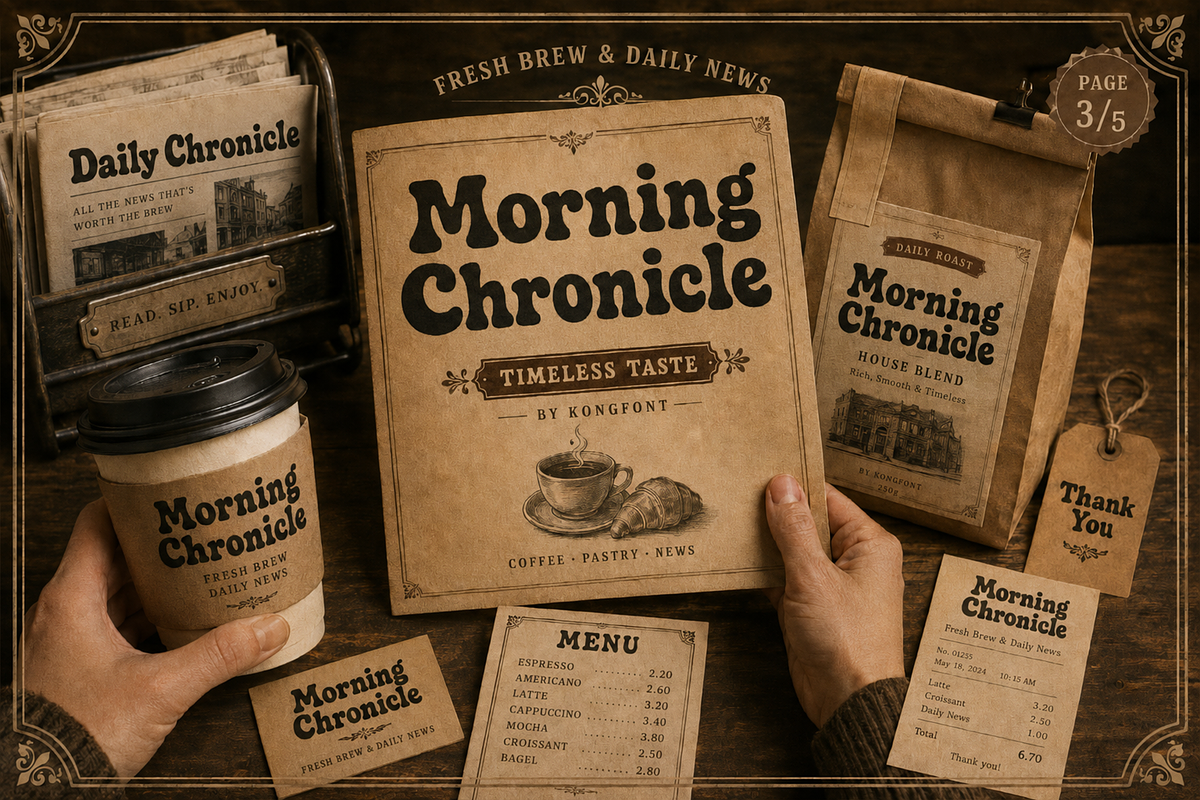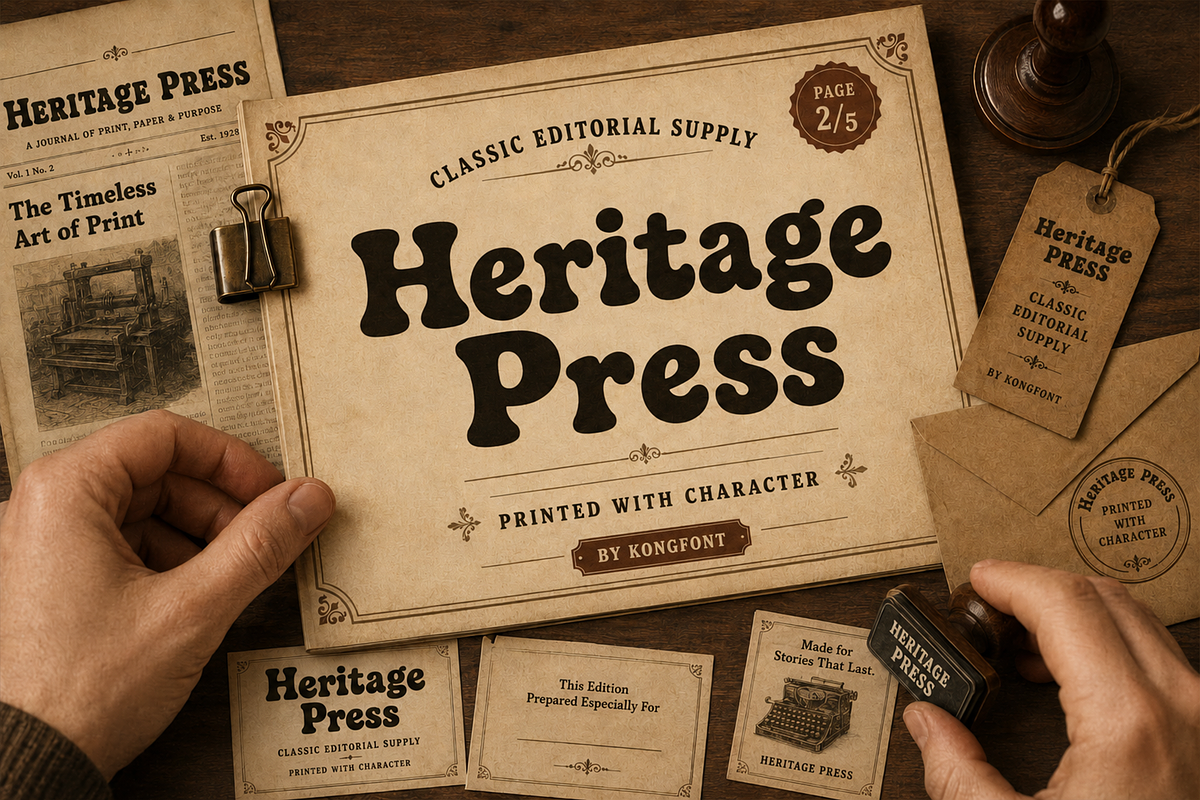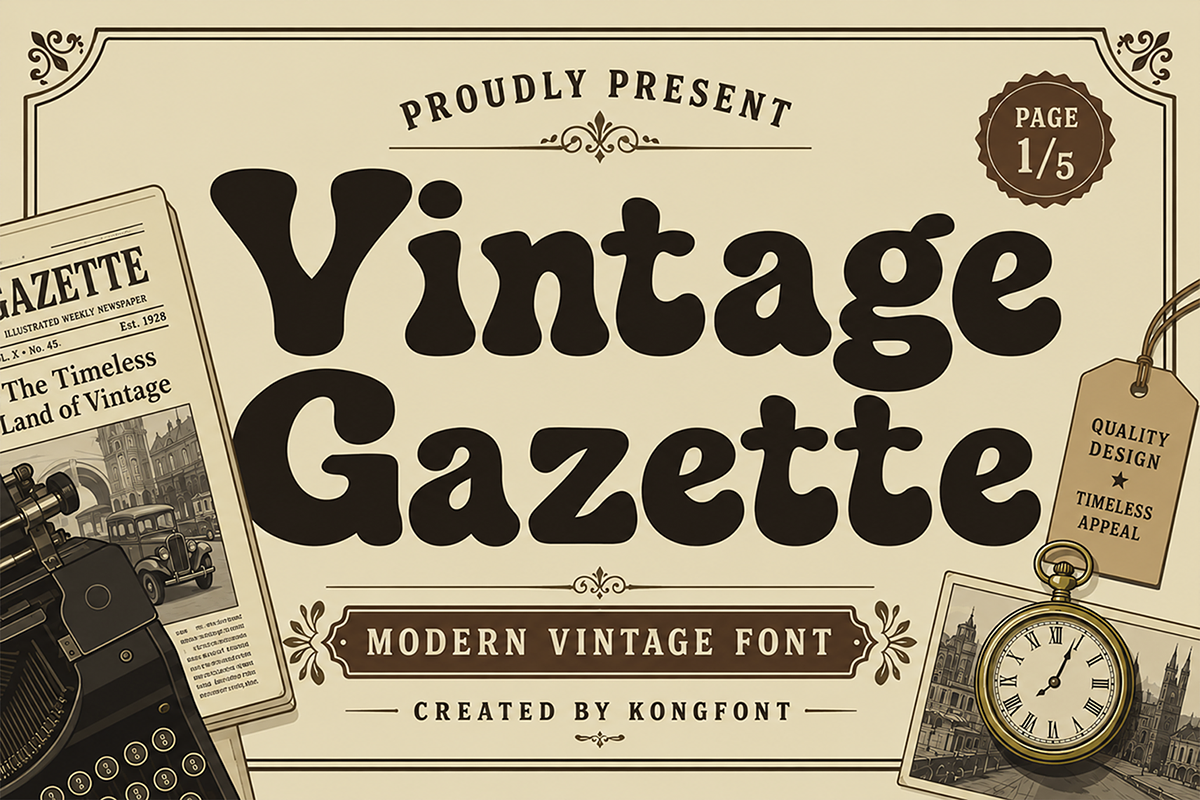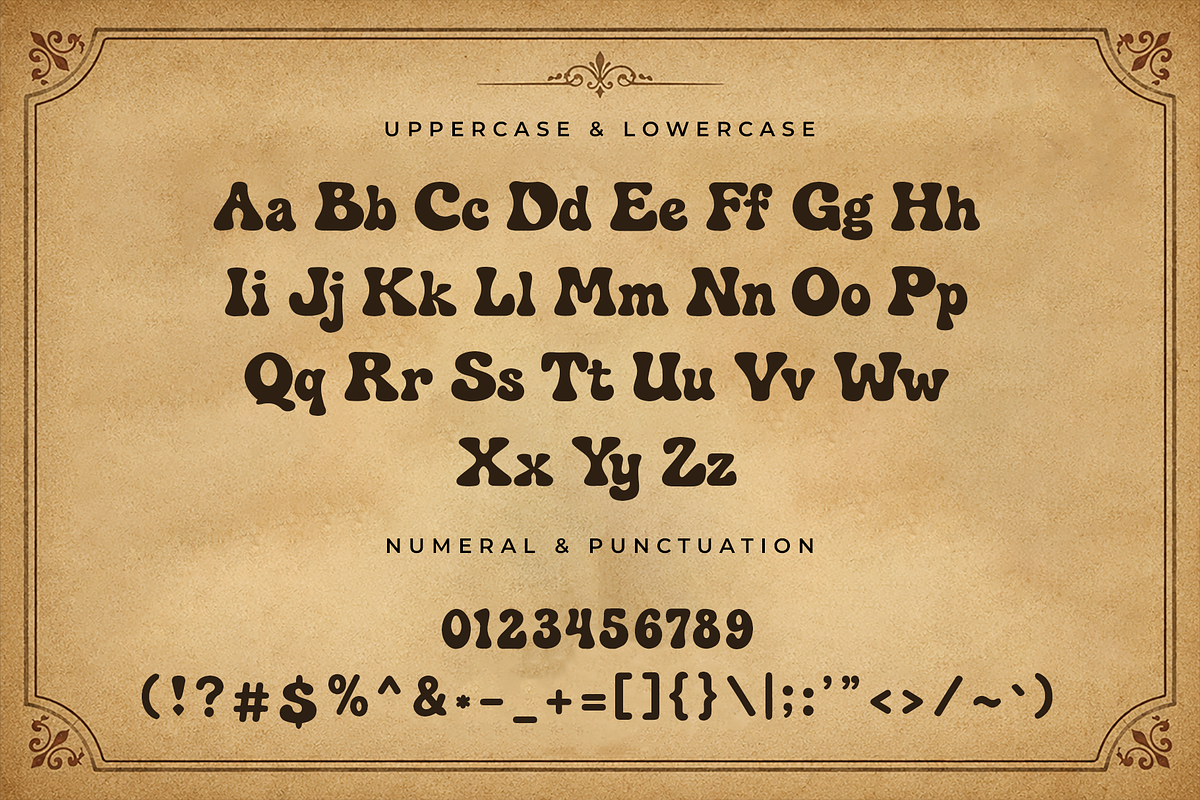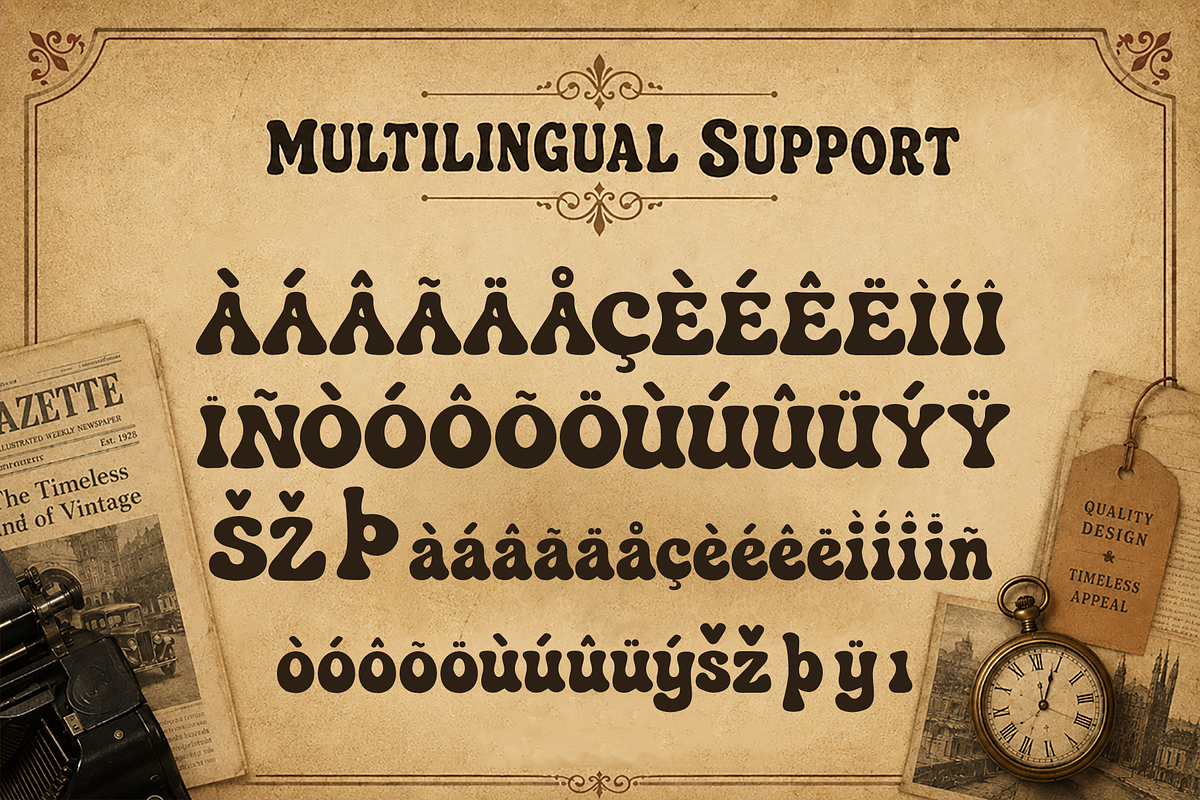
Vintage Gazette - Modern Vintage
Vintage Gazette - Modern Vintage Display Font
Meet "Vintage Gazette," a bold modern vintage display font inspired by classic newspapers, retro advertising, old editorial headlines, and nostalgic print design. Featuring thick rounded letterforms, soft curves, and a distinctive retro personality, Vintage Gazette delivers a warm and timeless look that instantly adds character to any composition.
Designed to combine vintage charm with modern versatility, this typeface works beautifully for headlines, logos, posters, packaging, labels, editorial layouts, signage, and branding projects. Its bold construction creates strong visual impact while maintaining a friendly and approachable appearance.
Vintage Gazette is a versatile display typeface created for designers who want to combine bold retro aesthetics, classic editorial inspiration, and modern usability across both digital and printed projects.